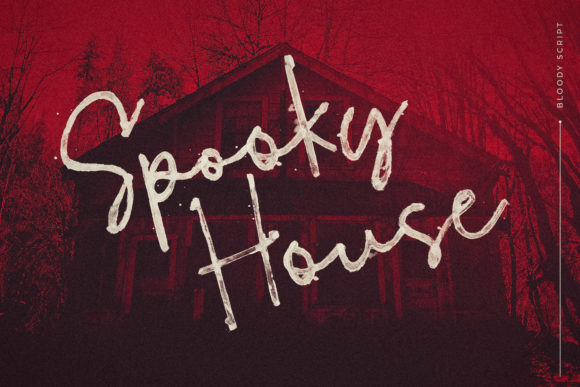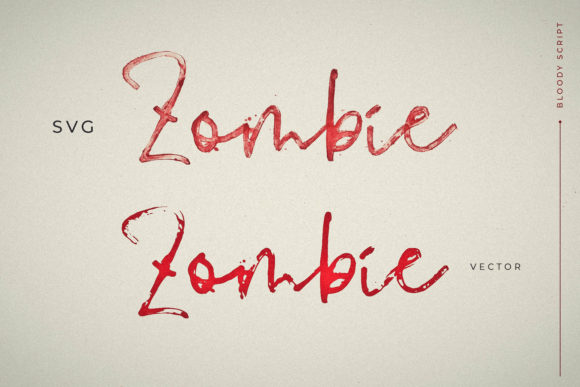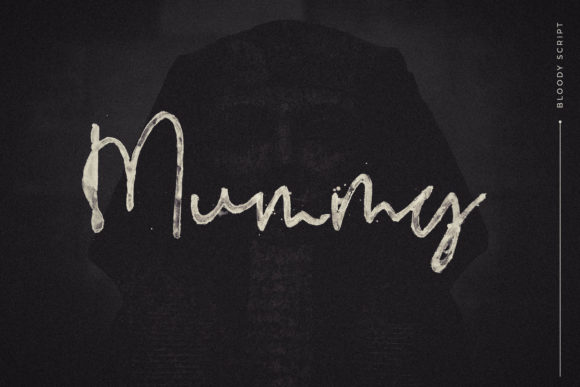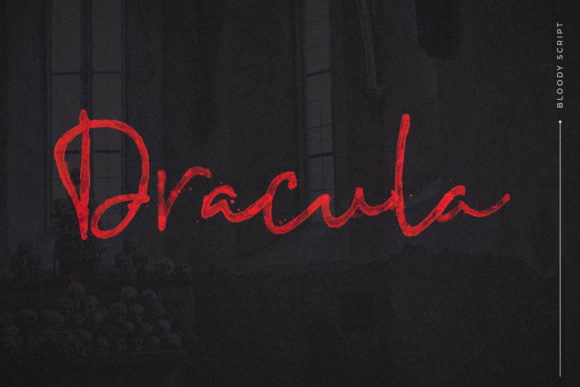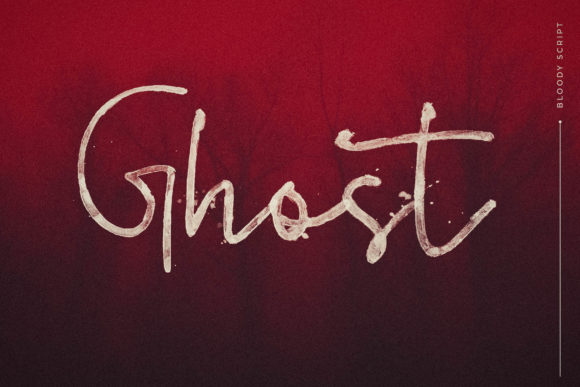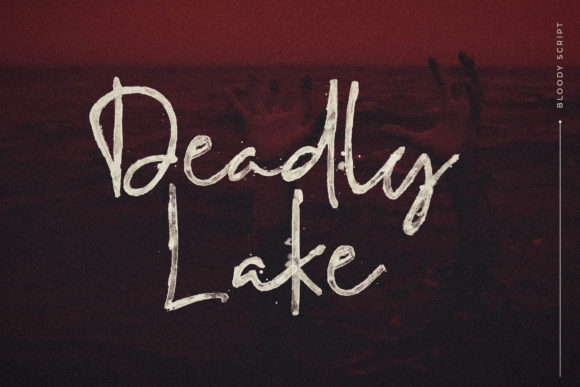
Bloody Script Font: The Ultimate Horror Font for Designers and Crafters
Are you looking for a font that will add a touch of horror and eeriness to your designs? Look no further than the Bloody Script Font. This amazing font is perfected with a look-alike blood texture, giving it a realistic and spooky effect. In this article, we’ll explore the features and benefits of the Bloody Script Font, and why it’s a must-have for designers and crafters.
What is Bloody Script Font?
The Bloody Script Font is a unique and terrifying font that is designed to resemble handwriting with blood. It’s perfect for creating spooky and horror-themed designs, such as Halloween cards, horror movie posters, and haunted house flyers. The font comes in two versions: a regular script font and an SVG version, making it versatile and compatible with various design software.
Features of Bloody Script Font
- Realistic Blood Texture: The Bloody Script Font features a look-alike blood texture that gives it a realistic and eerie effect.
- Regular Script Font: The regular script font is perfect for creating spooky and horror-themed designs, such as Halloween cards and horror movie posters.
- SVG Version: The SVG version of the font allows for scalability and editing, making it perfect for crafters and designers who want to customize their designs.
Benefits of Using Bloody Script Font
The Bloody Script Font offers several benefits to designers and crafters, including:
- Unique and Eye-catching Designs: The Bloody Script Font allows designers and crafters to create unique and eye-catching designs that will stand out from the crowd.
- Time-saving: The font is pre-designed, saving designers and crafters time and effort in creating their own horror-themed font.
- Versatility: The Bloody Script Font can be used for various design projects, from Halloween cards to horror movie posters, making it a versatile addition to any design library.
Uses of Bloody Script Font
The Bloody Script Font can be used for a variety of design projects, including:
- Halloween Cards and Invitations: Create spooky and horror-themed Halloween cards and invitations that will leave a lasting impression.
- Horror Movie Posters: Design eye-catching horror movie posters that will grab the attention of horror fans.
- Haunted House Flyers: Create flyers for haunted houses and spooky events that will leave a lasting impression.
- Crafting Projects: Use the Bloody Script Font for various crafting projects, such as scrapbooking, DIY signs, and other handmade crafts.
In conclusion, the Bloody Script Font is an amazing horror font that is perfect for designers and crafters who want to add a touch of horror and eeriness to their designs. With its realistic blood texture, regular script font, and SVG version, it’s a versatile and must-have font for any design library. Whether you’re creating Halloween cards, horror movie posters, or haunted house flyers, the Bloody Script Font is sure to make your designs stand out from the crowd.